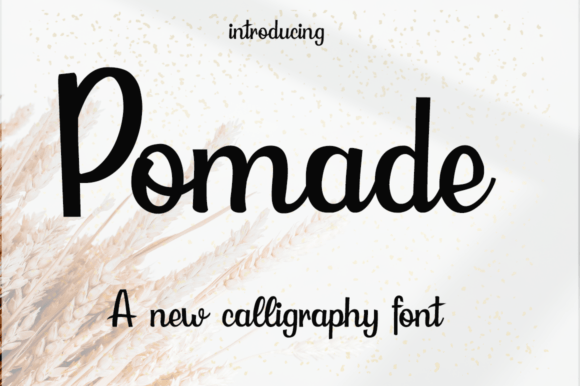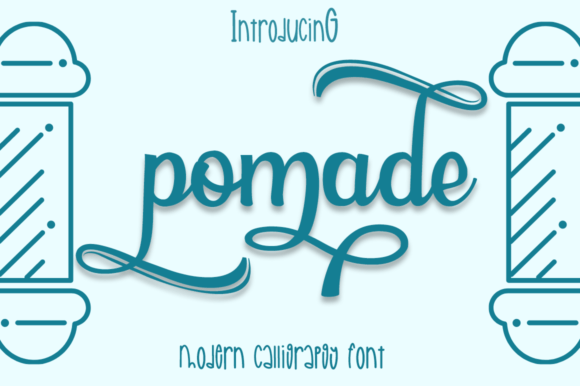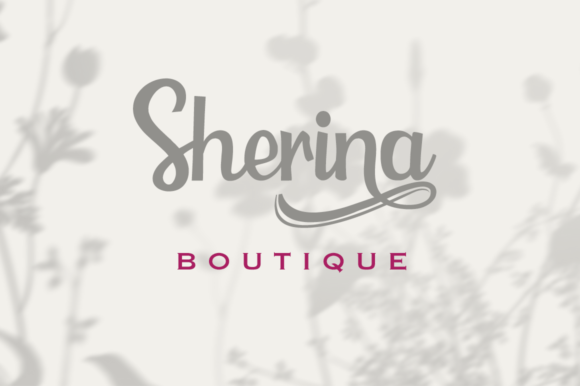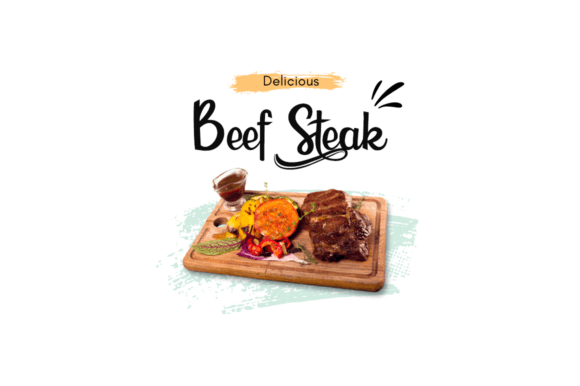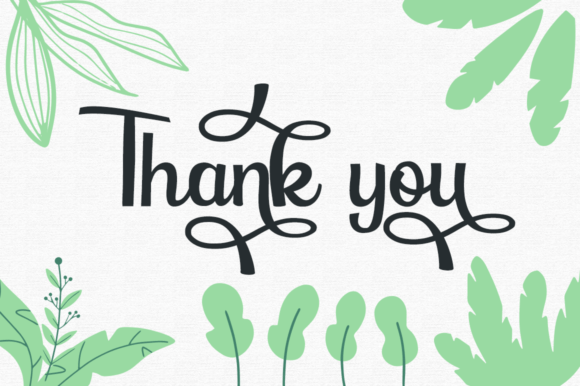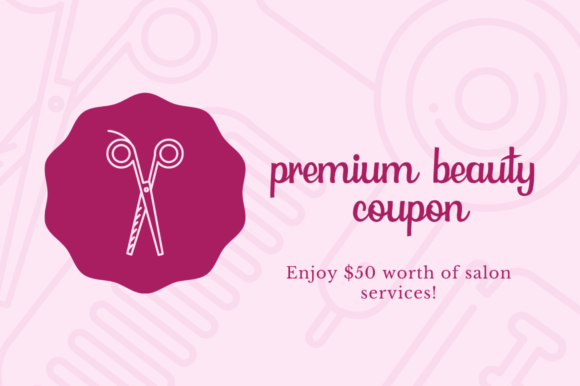
Pomade Font
About Pomade Font
Pomade Font is a stylish calligraphy typeface that blends modern design with a relaxed, handcrafted feel. With its fluid strokes and beautiful swashes, this script delivers an eye-catching charm ideal for a wide variety of design uses.
Created with elegance in mind, Pomade Font gives your text a flowing and personalized look. Its artistic flair brings sophistication and balance to every letter, making it a solid choice when you want to add a handwritten, luxurious touch.
Where to Use Pomade Font
Whether you’re designing for business or personal use, Pomade Font fits seamlessly into countless creative projects. In fact, its flexibility makes it perfect for:
• Logos and branding – Enhance your visual identity with elegance.
• Wedding invitations – Add a romantic and refined touch.
• Product packaging – Give your label a premium look.
• Book and magazine covers – Create a title that draws attention.
• Signage and headlines – Stand out with a casual yet polished script.
• Quotes and posters – Make every word feel expressive and styled.
• Labels and tags – Give products or gifts a custom-made appearance.
• Signatures and watermarks – Sign your name with flair.
Because the design is clean and graceful, it adapts easily to modern, rustic, or classic design themes. You can use it on both digital and print formats with stunning results.
From elegant wedding stationery to standout business branding, Pomade Font is ready to elevate your work with ease and style.